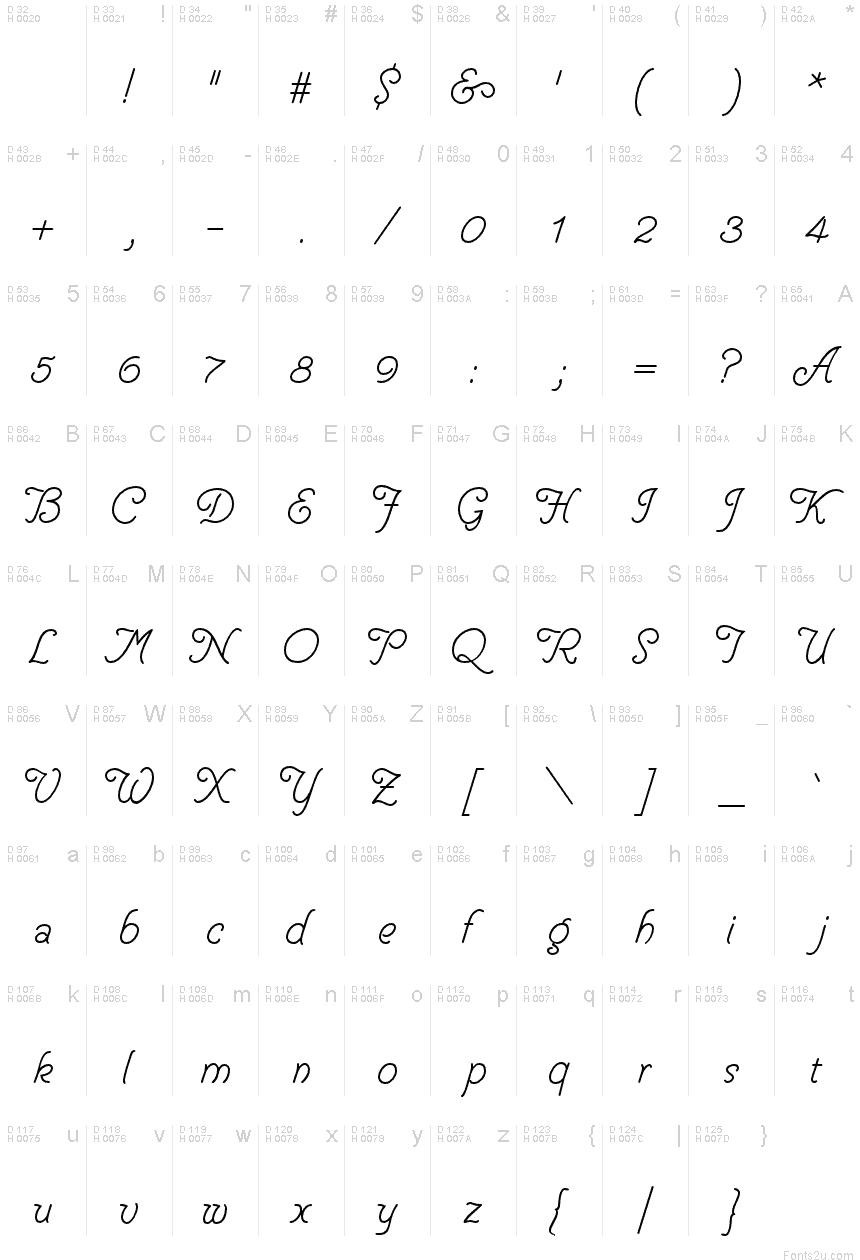
Helve Cursive
Helve Cursive by Toto is a free handwritten font shaped by long looping capitals and a smooth, rounded, mostly monoline stroke. Its generous curves make the lettering airy and unmistakably personal in use.
Packaging is an especially good setting for its sweeping forms, since perfume labels and confectionery boxes can borrow the intimacy of a hand-signed keepsake, and wedding invitations or boutique signage gain a similarly personal note. In publishing, it is best suited to magazine cover lines and lifestyle features about fashion or celebrations, where the conspicuous capitals can function almost like custom lettering rather than a neutral editorial face.
Based on Helvetica Cursive.